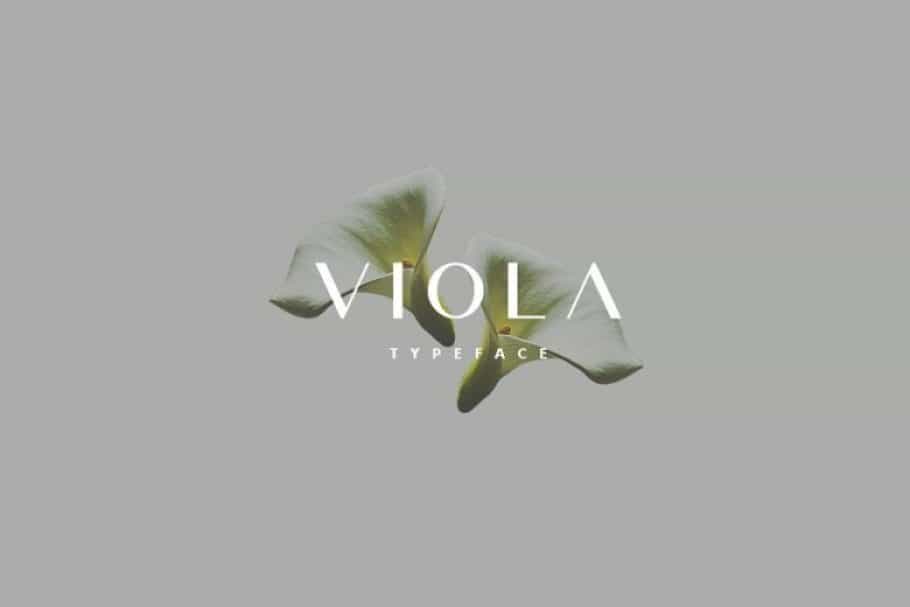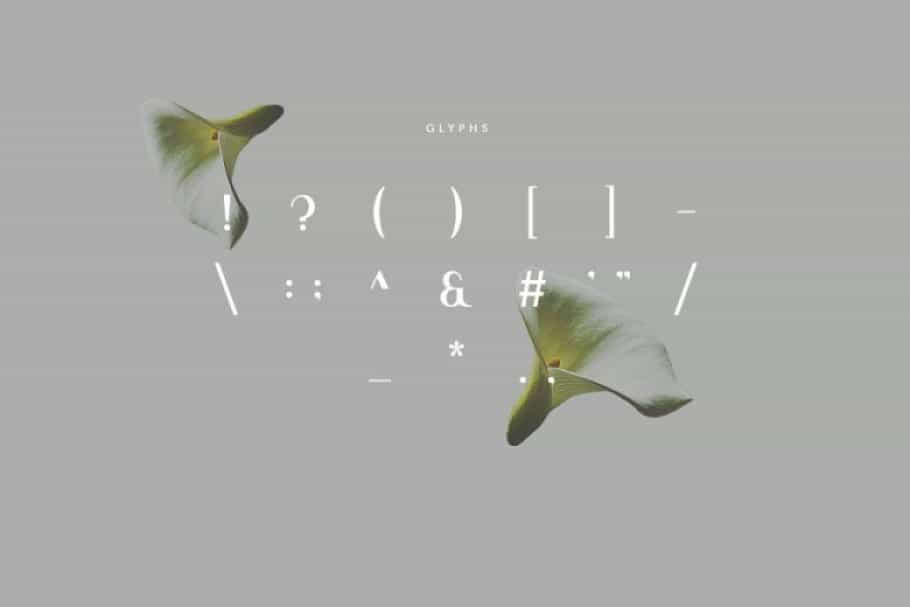
Viola Typeface is a classic yet elegant font perfect for apparels or magazines which are women oriented. Also, its application could extend to issues to do with life as women for instance.